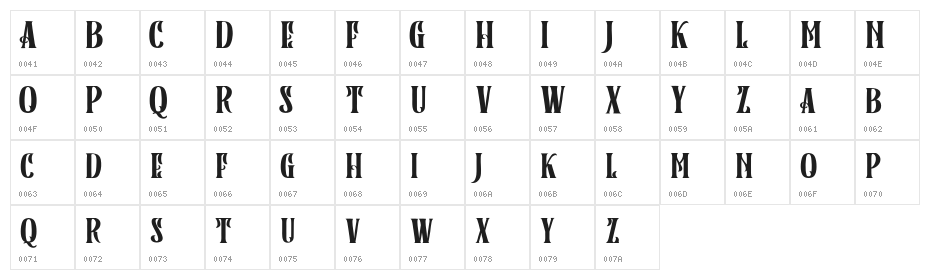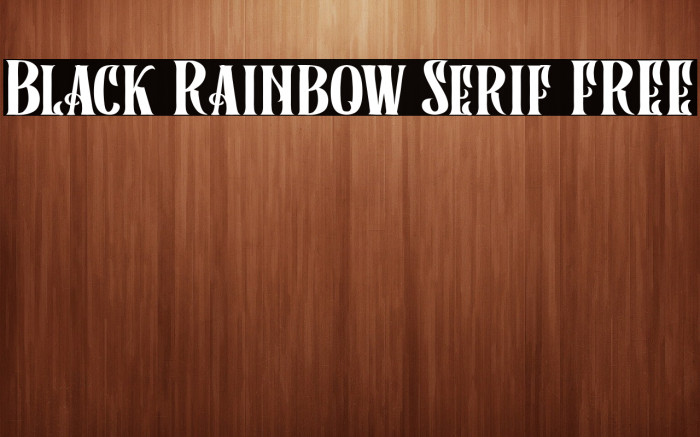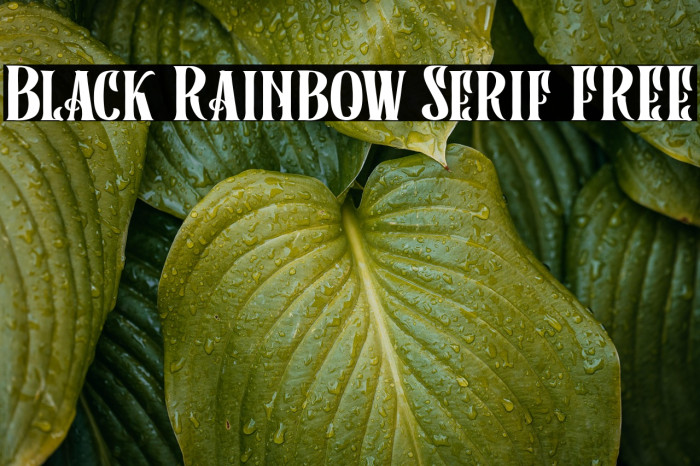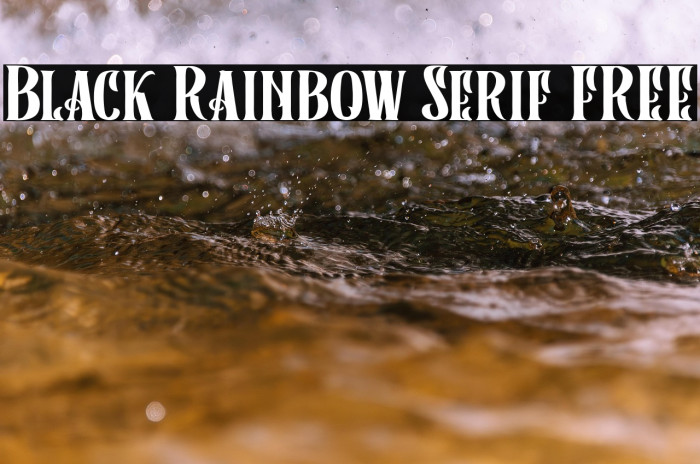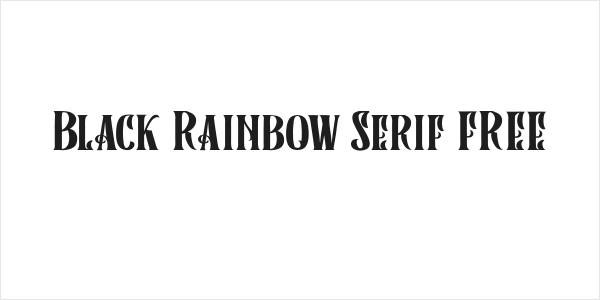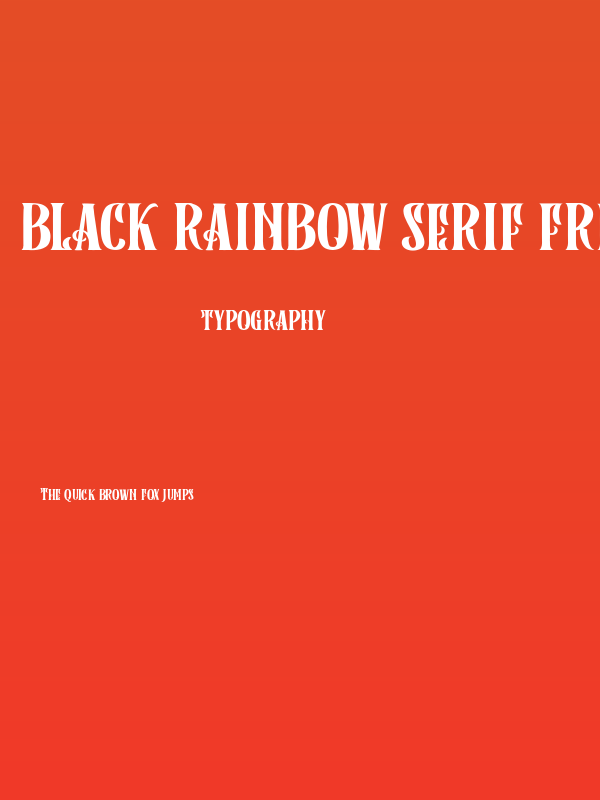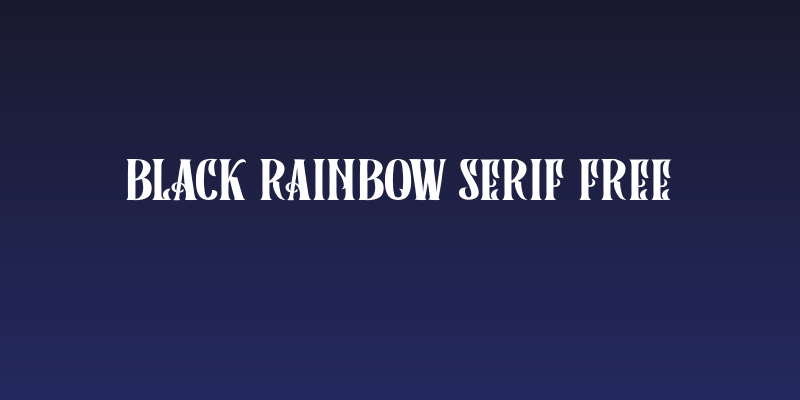
Black Rainbow Serif FREE Font
Black Rainbow Serif FREE Description
This font features a bold and dramatic style with high contrast between thick and thin strokes. The serif design incorporates unique, decorative elements that add a touch of elegance and flair. Each character is crafted with intricate details, making it stand out with a distinctive personality. The overall appearance is both classic and modern, suitable for making a strong visual impact. Its artistic curves and sharp edges create a dynamic and eye-catching effect, perfect for creative projects that require a bold statement.